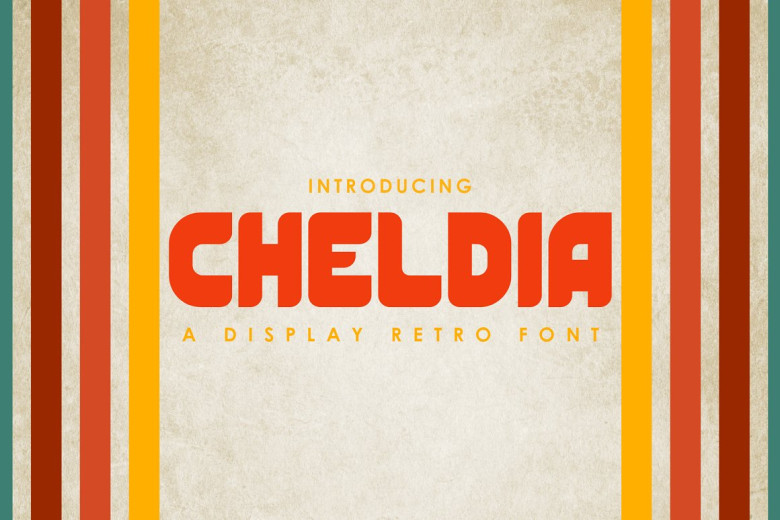
Cheldia Font
Cheldia Font by akatypestudio, Cheldia is an extra-bold display font of awesomeness made by the akatypestudio Team. This typeface will look truly storng and awesome for your big titles and headlines. Add it confidently to your projects, and you will love the results. With a retro style brings the original look All Caps in Regular Weight! It’s perfect for your art, modern envelope lettering or book design, poster, craft design, any Branding project, pop vintage designy, or any purposes.
A big fat personality of a font that will make your artistic aesthetic creations come alive and quirk them with style and weight. This regular version includes the full characters set and also an outlined version which shown on the preview.
Cheldia Display Font